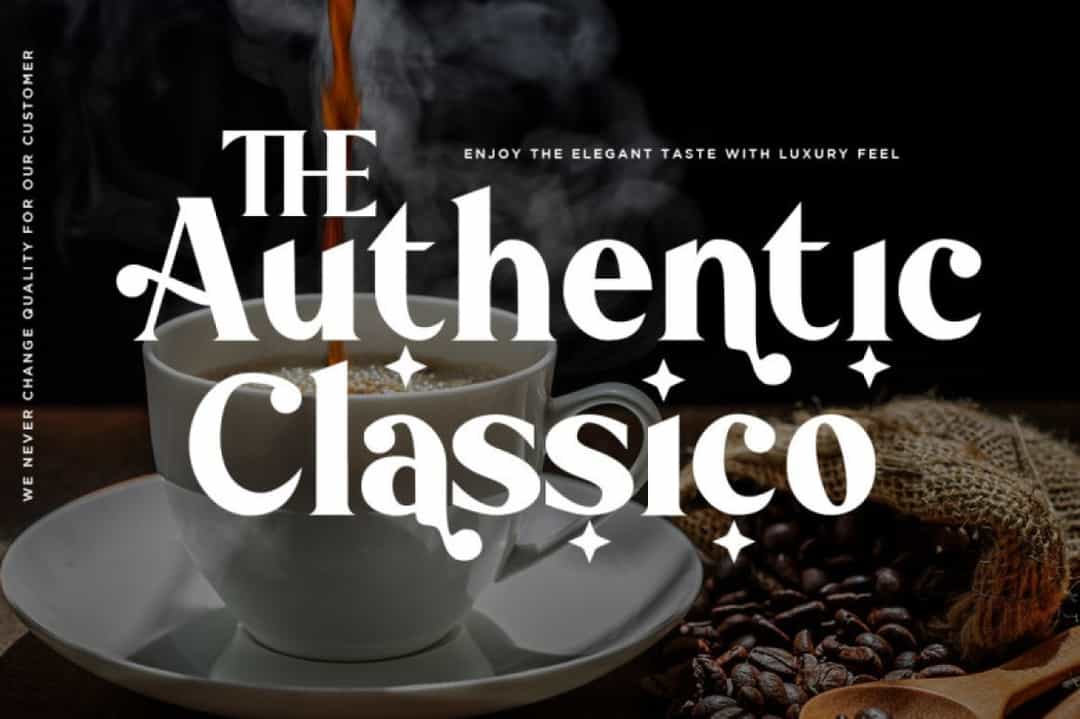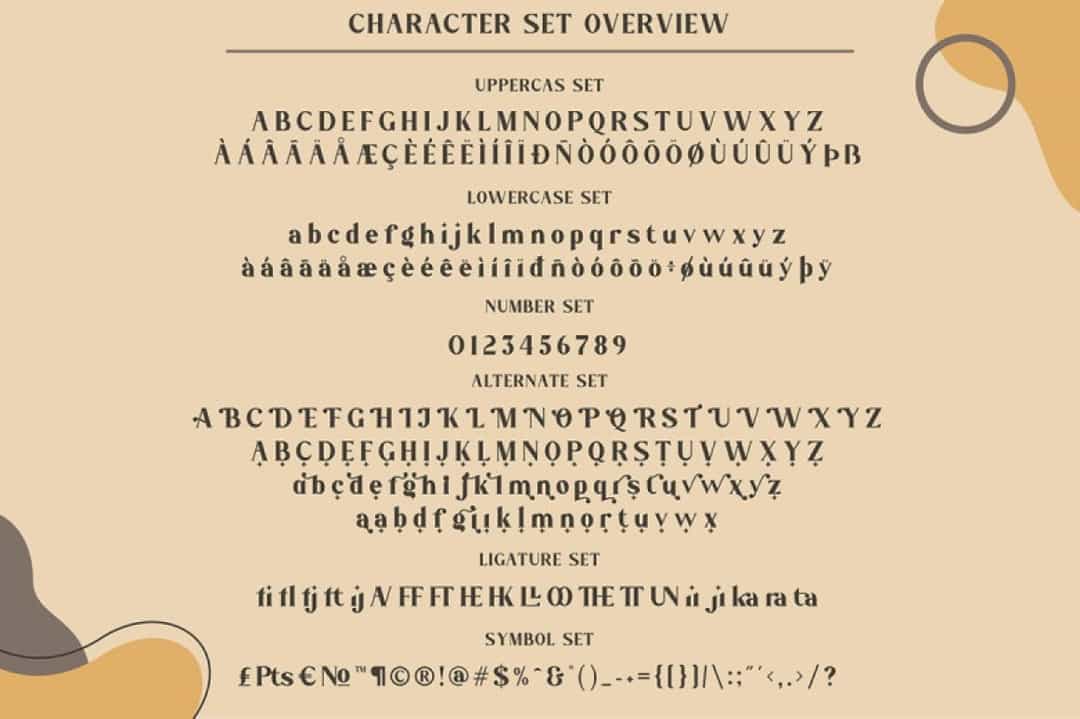
Megaturais an eye-catching elegant vintage serif font with beautifully balanced curves in both its uppercase and lowercase letters. Inspired by two talented artists’ lettering styles, but modernized for strong looks.